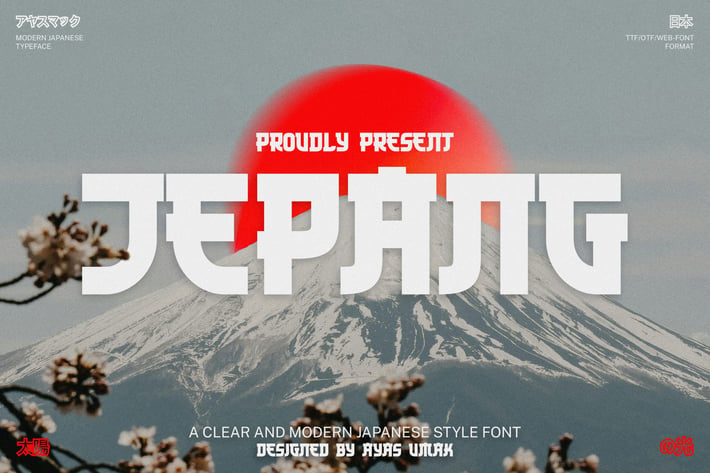
Jepang - Japanese Font
Introducing Jepang - Japanese Font - a Modern Professional Typeface excellent used for Heading or Title, Logotype, Merchandise, Clothing, Magazine, Corporate, Sports, Event, Ticket and many more.